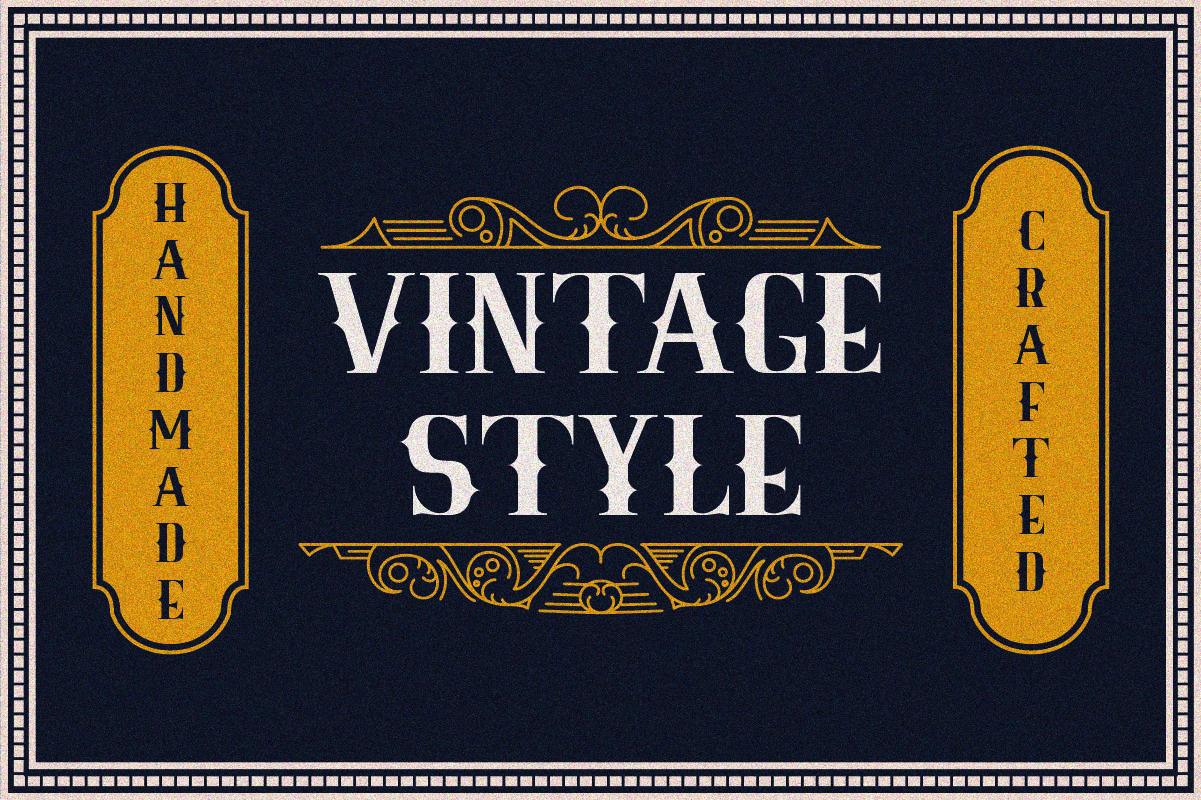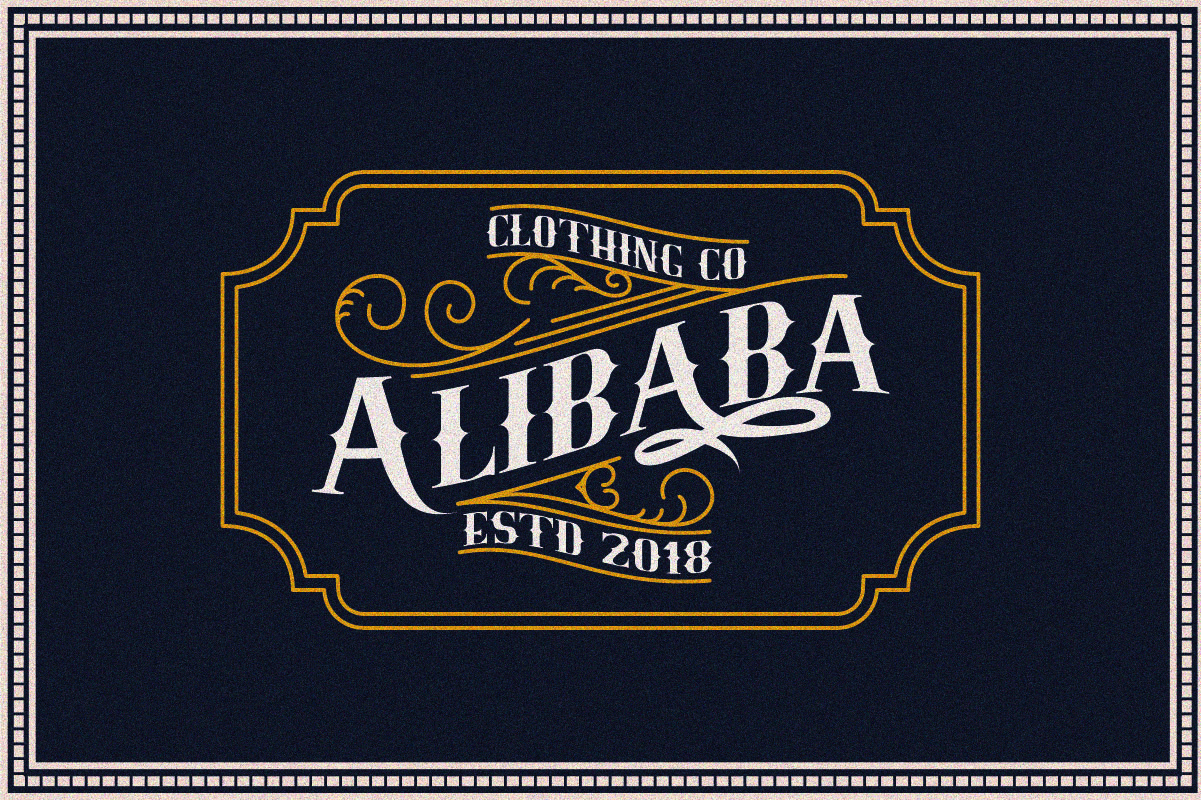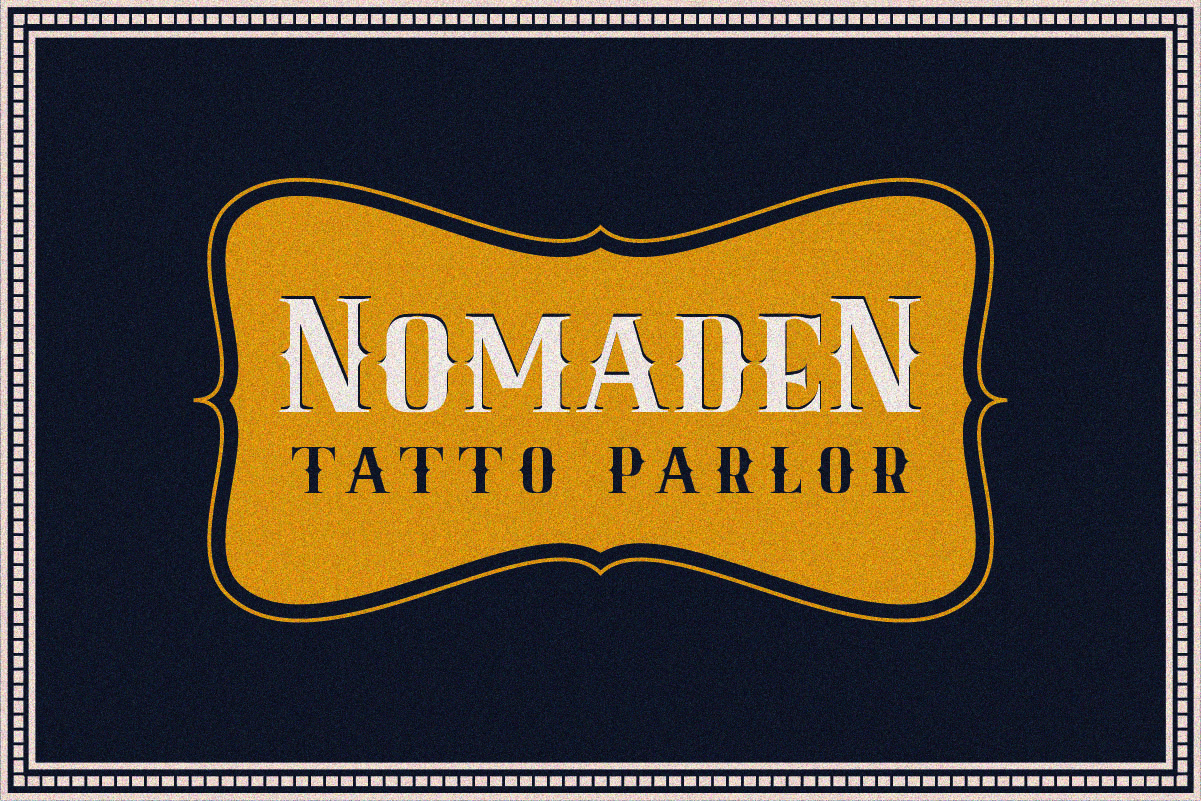
Royale Kingdom Free Font
Royale Kingdom Free Font gives your design with a touch of vintage style. this typeface is handmade lettering with vector editing. Royale Kingdom Free Font is suitable for various design projects like Card, T-Shirt, Apparel, Stationery, Book Template, and many more. Royale Kingdom ~ Vintage Typeface has +700 Glyphs which is stylistic Glyphs. This free typeface was designed by a talented Youthlabs Studio. If you like it don’t forget to check out the full version.